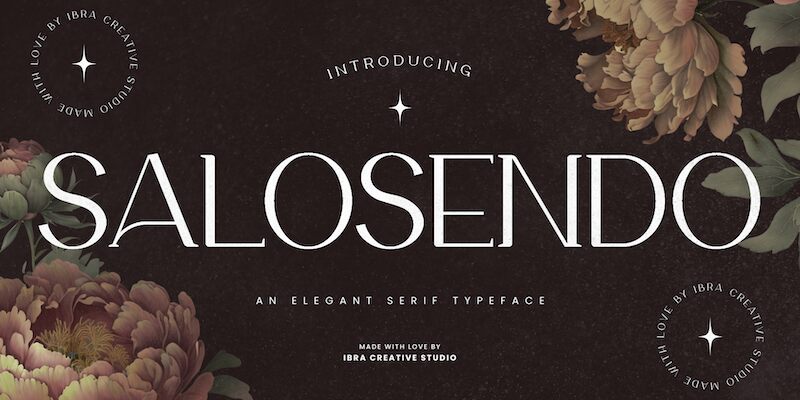
Salosendo font by Ibra Creative Studio is elegant and modern, even sophisticated by design. It’s a serif font with a minimalistic build and high contrast between different line lengths and thicknesses across every character. Consistent size variation boils the final presentation to one of beauty with Salosendo that can easily feel familiar but yet unique.
Use this free serif font in general branding projects, visual identity designs including logo ideas, invitation postcards, business cards, or any documents. Additionally, it could be applicable for posters, banners, magazine layouts as well as social media headers among others.